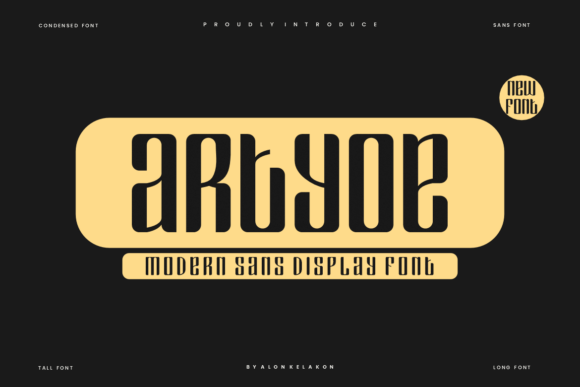
The Artyoe Font: A Sweet and Friendly Sans Serif for Your Creative Projects
Have you ever been in the middle of a design project, and suddenly, you’re stuck on finding the perfect font? I recall a recent experience where I was working on a whimsical craft project, and my client’s request was to make it feel both modern and approachable. As I scrolled through my font library, I stumbled upon Artyoe – a sweet and friendly sans serif font that instantly clicked with my vision.
An Honest Review of Artyoe
What I Love About Artyoe ✨
- ✅ Its natural and unique style makes it incredibly versatile for a wide range of designs.
- ✅ The font’s friendly vibe is perfect for projects that require a personal touch, such as crafting, DIY tutorials, or even kid-friendly educational materials.
- ✅ Artyoe’s sans serif structure ensures clarity and readability, even at smaller font sizes.
While Artyoe is an excellent font, there are a few minor considerations to keep in mind:
- ⚠️ It might not be the best fit for very formal or corporate projects, as its friendly nature might not align with the desired tone.
- ⚠️ Some of the more intricate OpenType features might not work seamlessly across all platforms or software.
The Backstory of Artyoe
Artyoe was designed with the intention of creating a font that feels both modern and approachable. The designer aimed to craft a typeface that could be used across various creative projects, from crafting and DIY tutorials to educational materials and more. The result is a font that exudes warmth and friendliness, making it perfect for designs that require a personal touch.
Q: What makes Artyoe unique?
A: Artyoe’s unique blend of modernity and friendliness sets it apart from other sans serif fonts.
Q: Does Artyoe support OpenType features?
A: Yes, Artyoe supports various OpenType features, including stylistic alternates and glyphs, which can enhance your designs.
Q: Is Artyoe suitable for body text?
A: Absolutely! Artyoe’s clear and readable structure makes it an excellent choice for body text in various design projects.